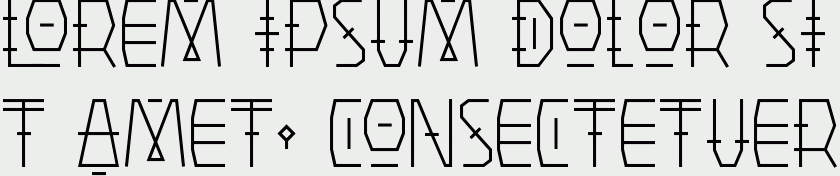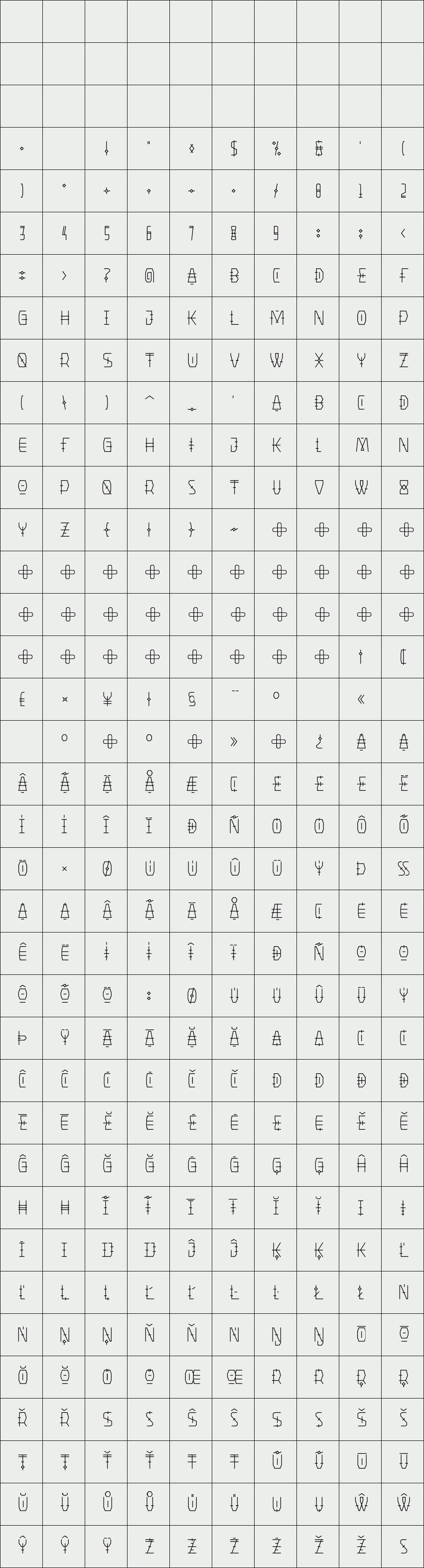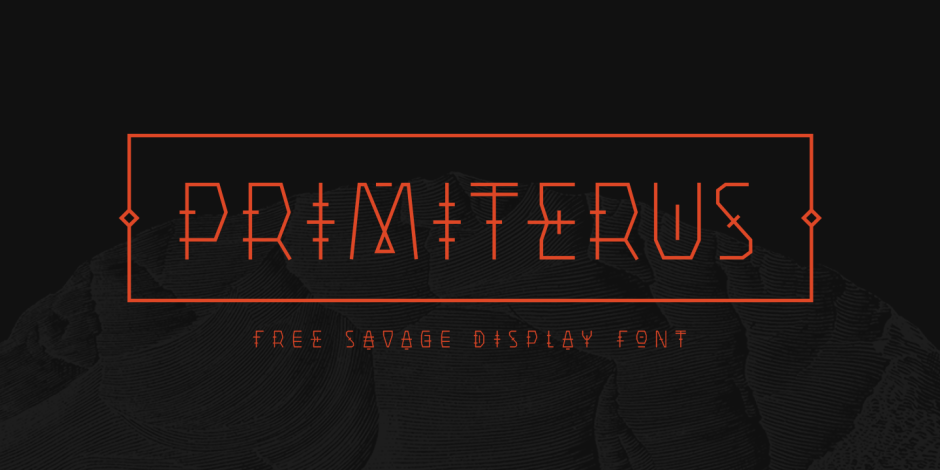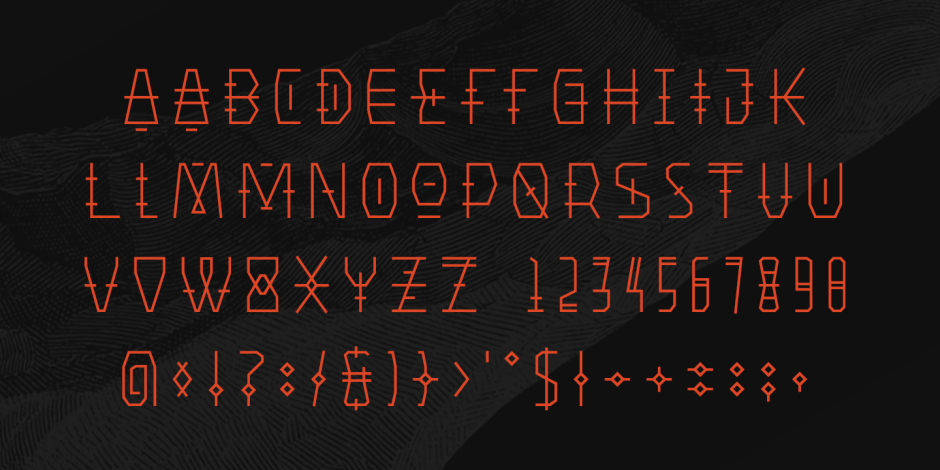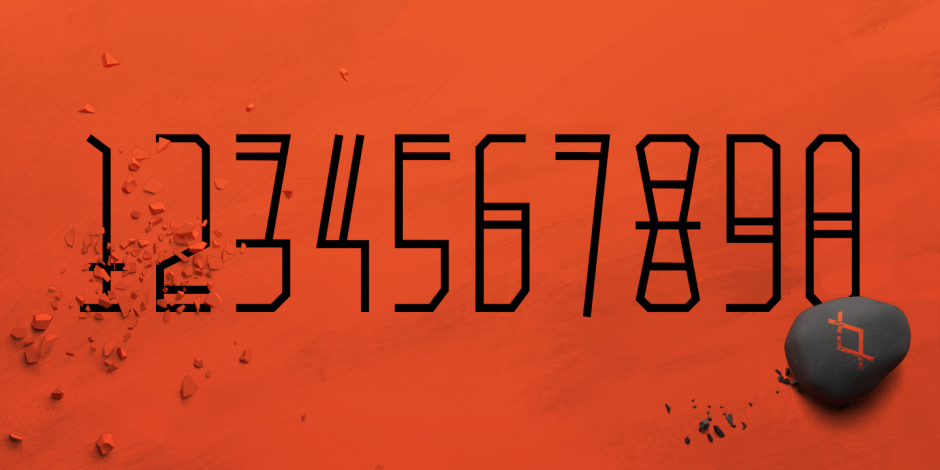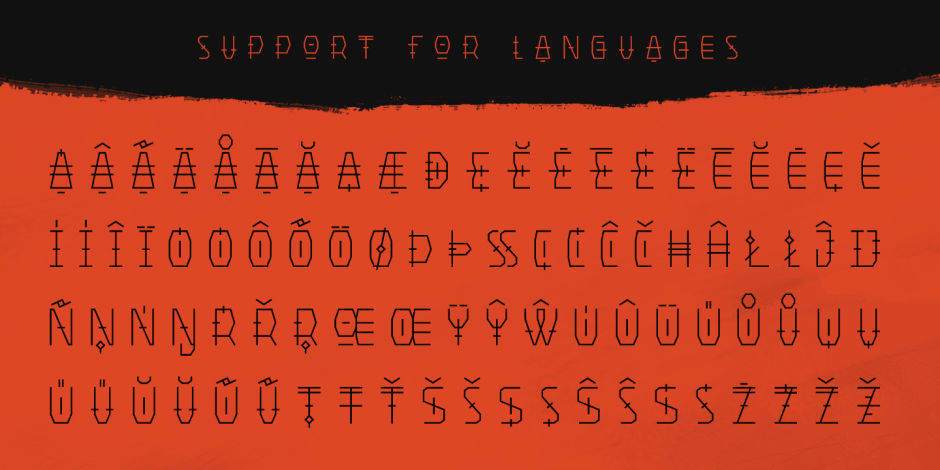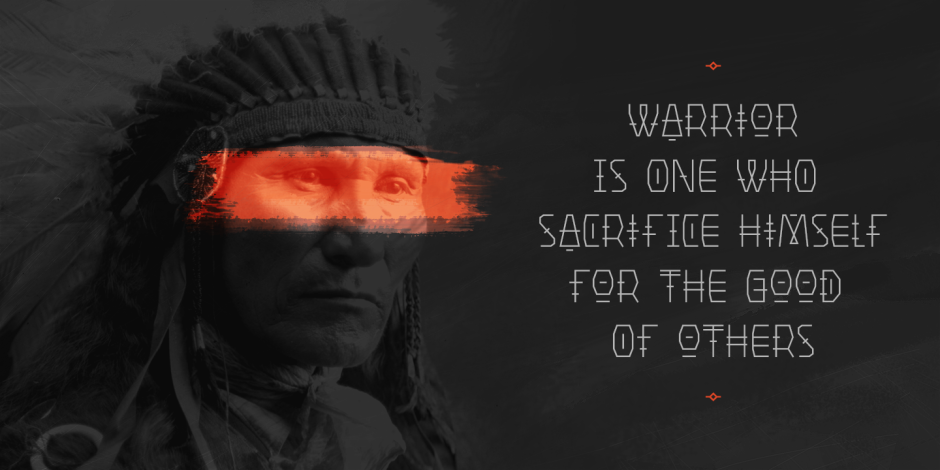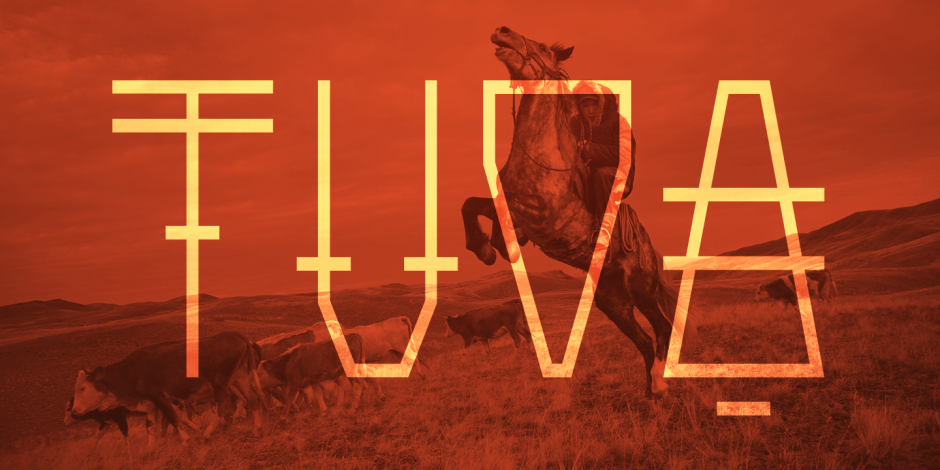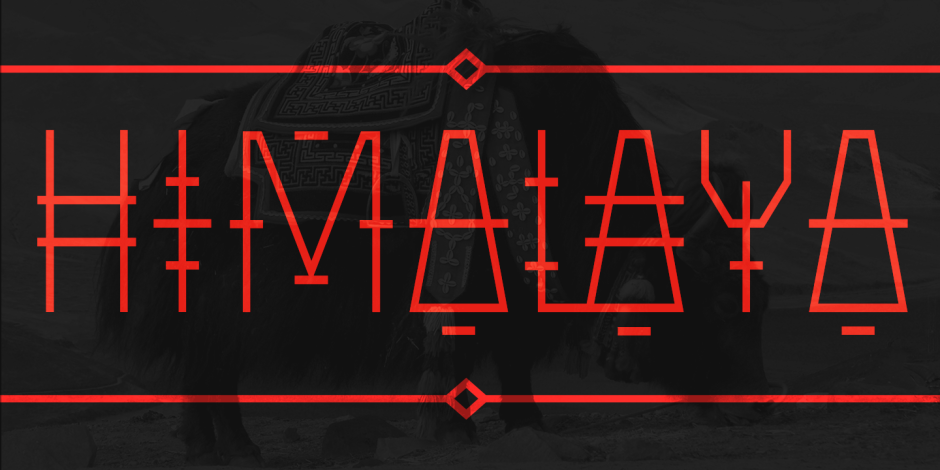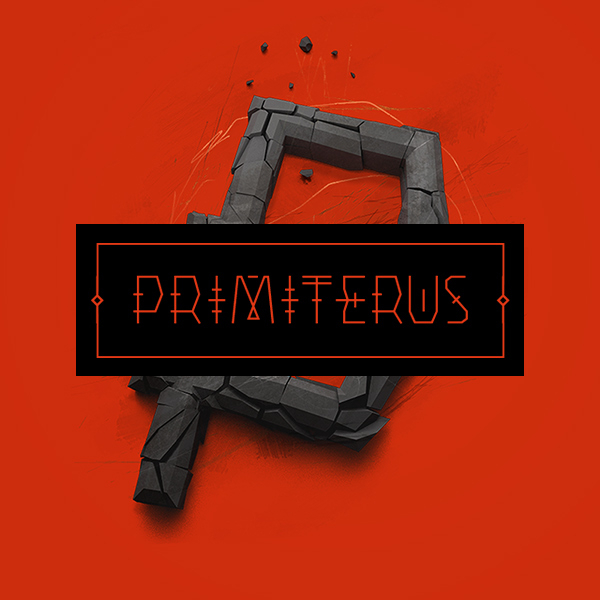
Primiterus
PRIMITERUS - absolutely free all-caps font made for your wild, free and raw headlines. Unleash your savage nature and get back to the roots.
Designer: Maciej Świerczek